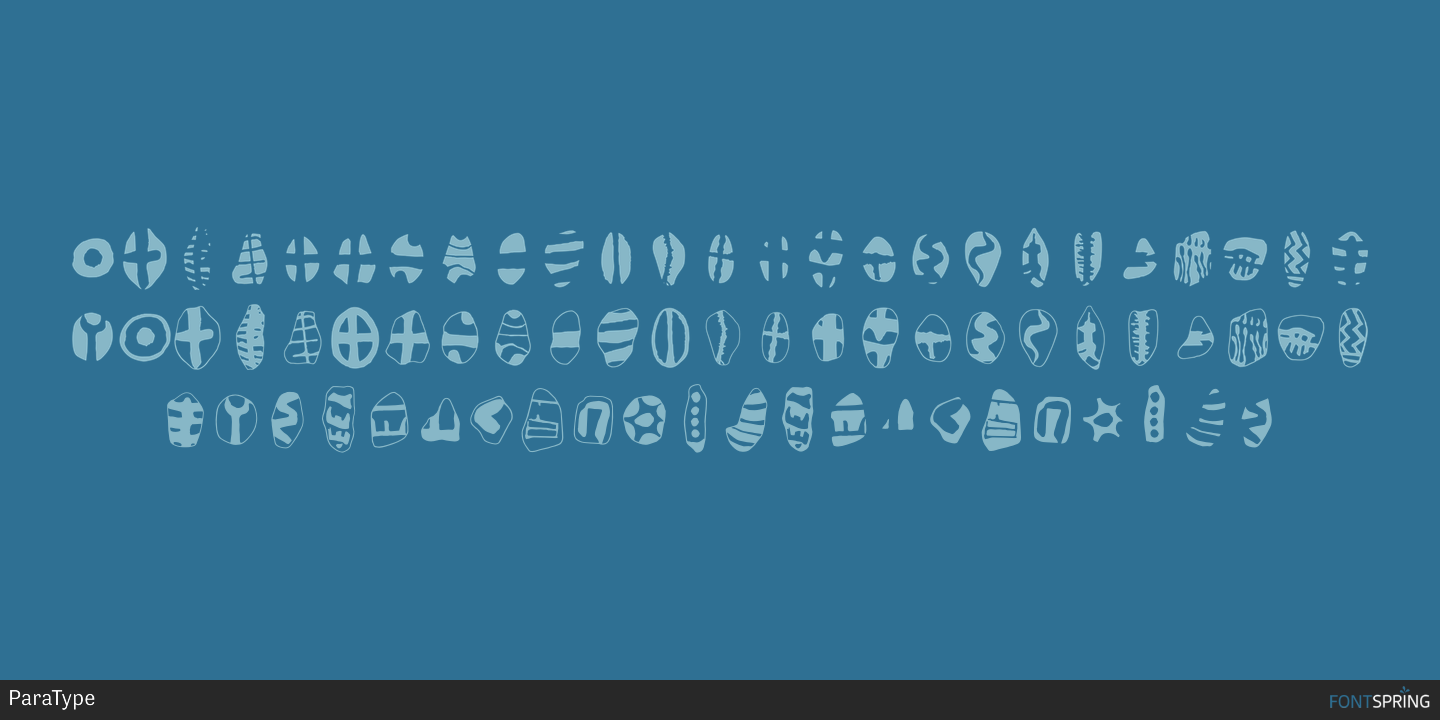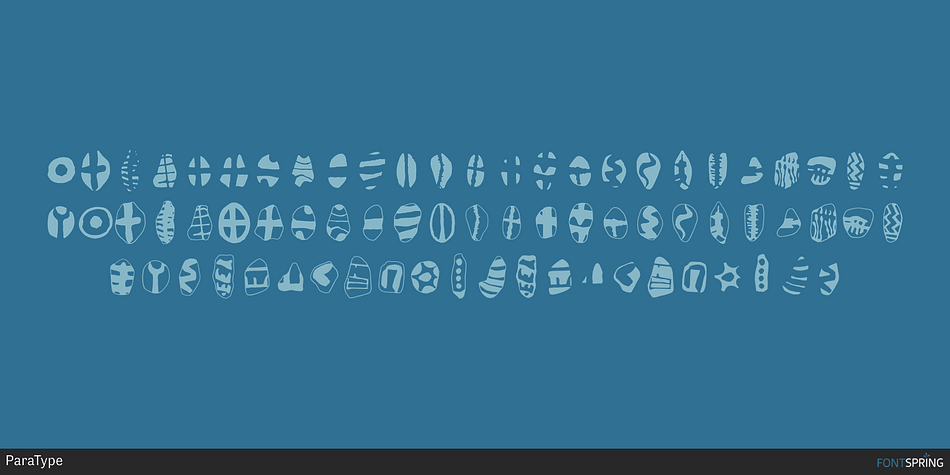
Designed by Dmitry Kirsanov, Mas d'Azil is a dingbat font published by ParaType.
A set of symbols was designed for ParaType in 2002 by Dmitry Kirsanov as a part of PT Mas d`Azil™ family. Based on the images on stones discovered in a prehistoric cave of Mas-d`Azil, France.